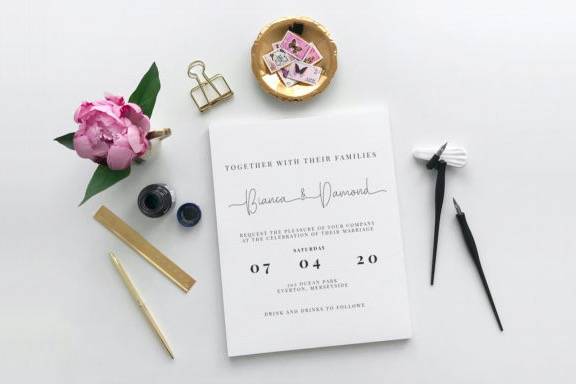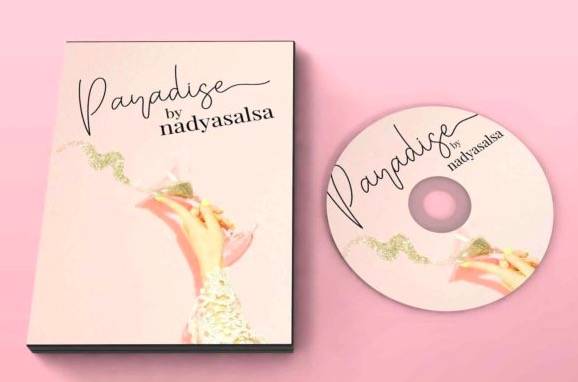
Miya Wayne Handwritten Font
Introduce you the handwritten font, Miya Wayne. Especially, it will flows like a signature when you type it. This handwritten font really shows the art of hand-work. Miya Wayne font is so fresh and contemporary. Although, it is classy calligraphic influences.
Miya Wayne Font is a modern handwritten typeface which was released by StringLabs. This handwritten font is so appealing, and a bit shabby.
You can use Miya Wayne font for various purposes. Such as in wedding invitation design, designing a brand logo, fashion brand, a poster or a cover layout, invitations card designs and plenty of others.